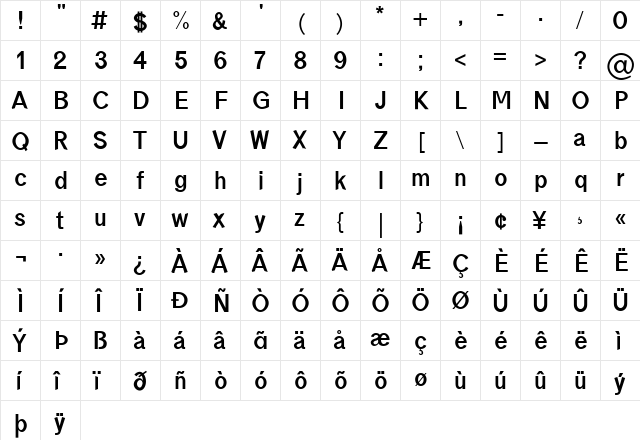
borneo Bold
| Designer | LEMON STUDIO |
Design Context for borneo Typeface
borneo is a composed and adaptable typeface that performs quietly and consistently across a wide range of design contexts. The heavy weight commands attention and anchors typographic hierarchies.